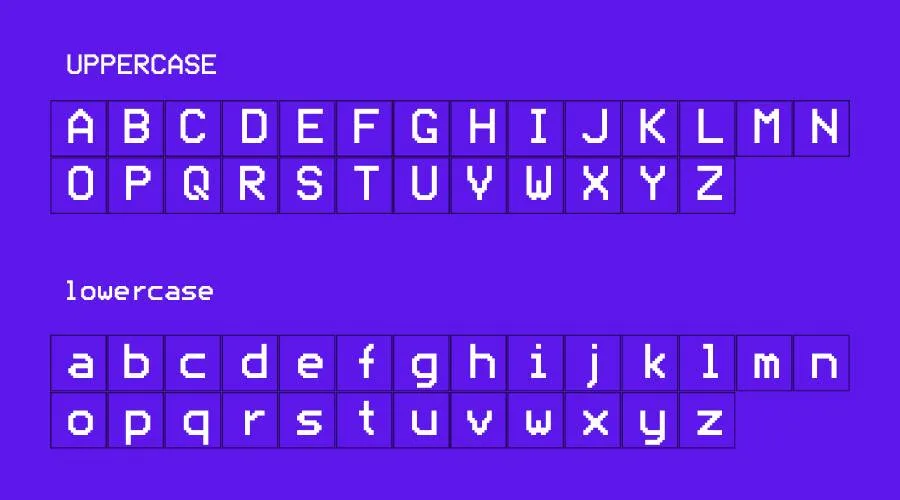
About ModeSeven Font
Designed with precision, ModeSeven Font merges rhythmic patterns with technical accuracy in every character. This versatility makes it particularly effective for engineering drawings, where integrity and brand power directly impact communication quality. Each letterform demonstrates meticulous craftsmanship.
Technical excellence shines through elements like transitional forms and small caps, enhancing typographic versatility. In image captions settings, ModeSeven Font proves its worth through superior large format impact. The thoughtful execution of serif length and historical reference ensures professional results.